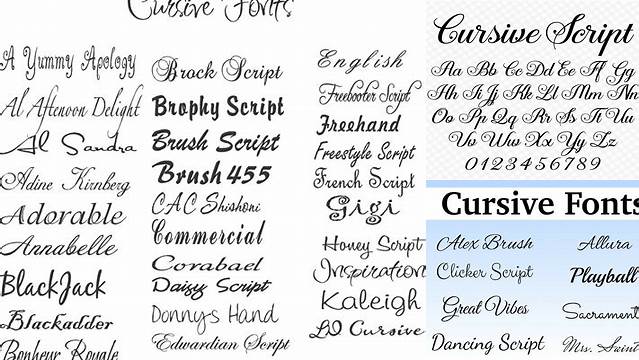
Elegant Fonts: Free Cursive For Word - Your Guide
Hey guys! Ever wanted to spice up your Word documents with some elegant cursive fonts? You're in the right place! In this guide, we'll dive deep into the world of free cursive fonts for Word. We’ll explore where to find them, how to install them, and how to use them effectively. Get ready to make your documents look stunning!
1. Understanding Cursive Fonts
What are Cursive Fonts?
So, what exactly are cursive fonts? Well, imagine handwriting, but in digital form. Cursive fonts mimic the flowing strokes of handwriting, where letters connect in a stylish and fluid manner. These fonts add a touch of elegance and personality to your text, making them perfect for invitations, headings, and other special documents. When choosing a free cursive fonts for Word, it's essential to consider the readability and the overall tone you want to convey. Some fonts are more formal and refined, while others are playful and casual. The key is to find one that matches your project's aesthetic and makes your message stand out. Remember, a well-chosen cursive font can transform your document from plain to polished, so let’s explore the best options available.
The History of Cursive Writing
The history of cursive writing is super fascinating! It dates back centuries, evolving from earlier forms of handwriting designed for speed and efficiency. Think about it – before typewriters and computers, everything was handwritten. Cursive scripts developed as a way to write quickly without lifting the pen, creating connected letters. This was especially important for official documents and correspondence. Over time, different styles of cursive emerged in various cultures, each with its unique flair and characteristics. Understanding this history can give you a deeper appreciation for the artistry behind cursive fonts. When you use a free cursive fonts for Word, you're not just choosing a pretty typeface; you're tapping into a rich tradition of written communication. From elegant Copperplate to flowing Spencerian, each style tells a story. So, next time you're selecting a font, consider the historical context and how it can enhance your project's message and visual appeal.
Why Use Cursive Fonts?
Why should you even bother with cursive fonts? Great question! Cursive fonts can add a touch of class and sophistication to your documents. They're perfect for creating a more personal and inviting feel, especially in contexts like invitations, greeting cards, and thank-you notes. Imagine receiving a wedding invitation with a beautifully flowing cursive font – it just feels more special, right? Beyond aesthetics, cursive fonts can also help highlight important text or create visual interest in a document. However, it's crucial to use them sparingly and thoughtfully. Overusing cursive can make your text harder to read, which defeats the purpose. When choosing a free cursive fonts for Word, consider the context and readability. A decorative cursive might be perfect for a title, but a simpler, more legible one might be better for body text. The key is balance – use cursive to enhance, not overwhelm, your message. So go ahead, experiment with different styles and find the perfect cursive font to make your documents shine!
3. Installing Cursive Fonts in Word